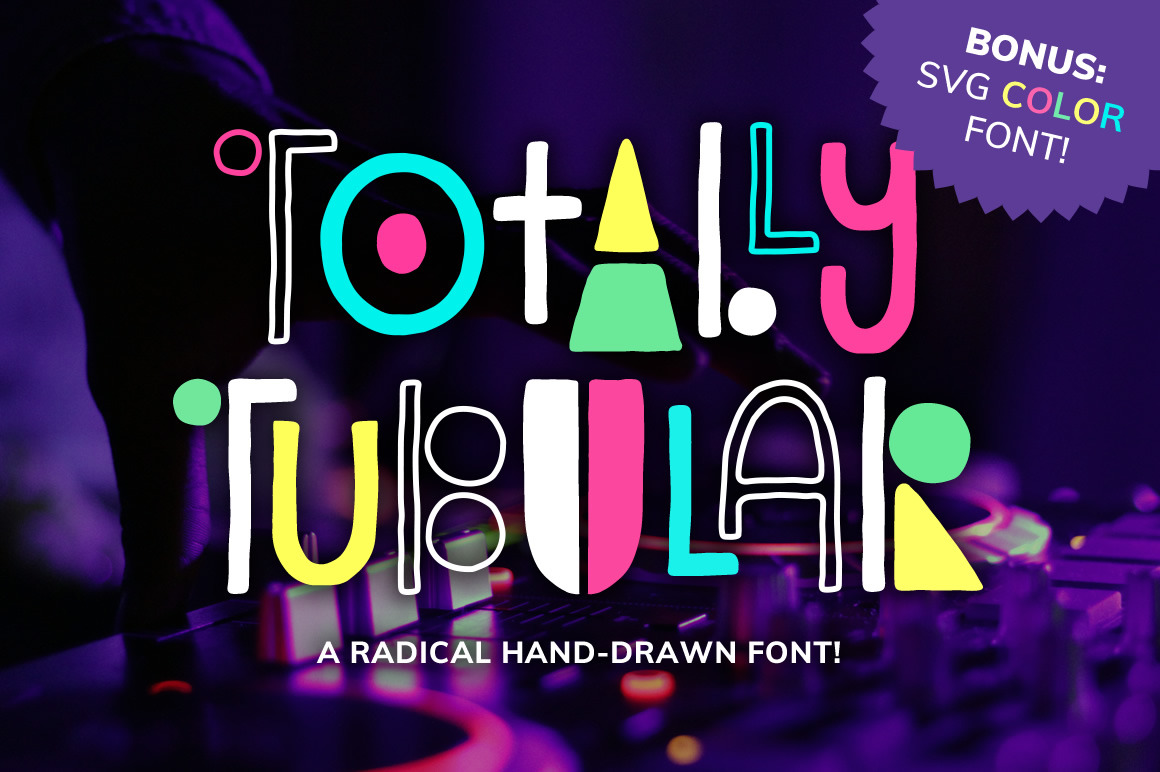
Totally Tubular Font
Introducing: Totally Tubular! An incredibly fun, hand-drawn retro font that comes with an outline version to mix and match. Also included is a bonus color SVG version. OpenType-SVG fonts can be used in programs like Photoshop CC 2017+, Illustrator CC 2018+, or InDesign CC 2019+.